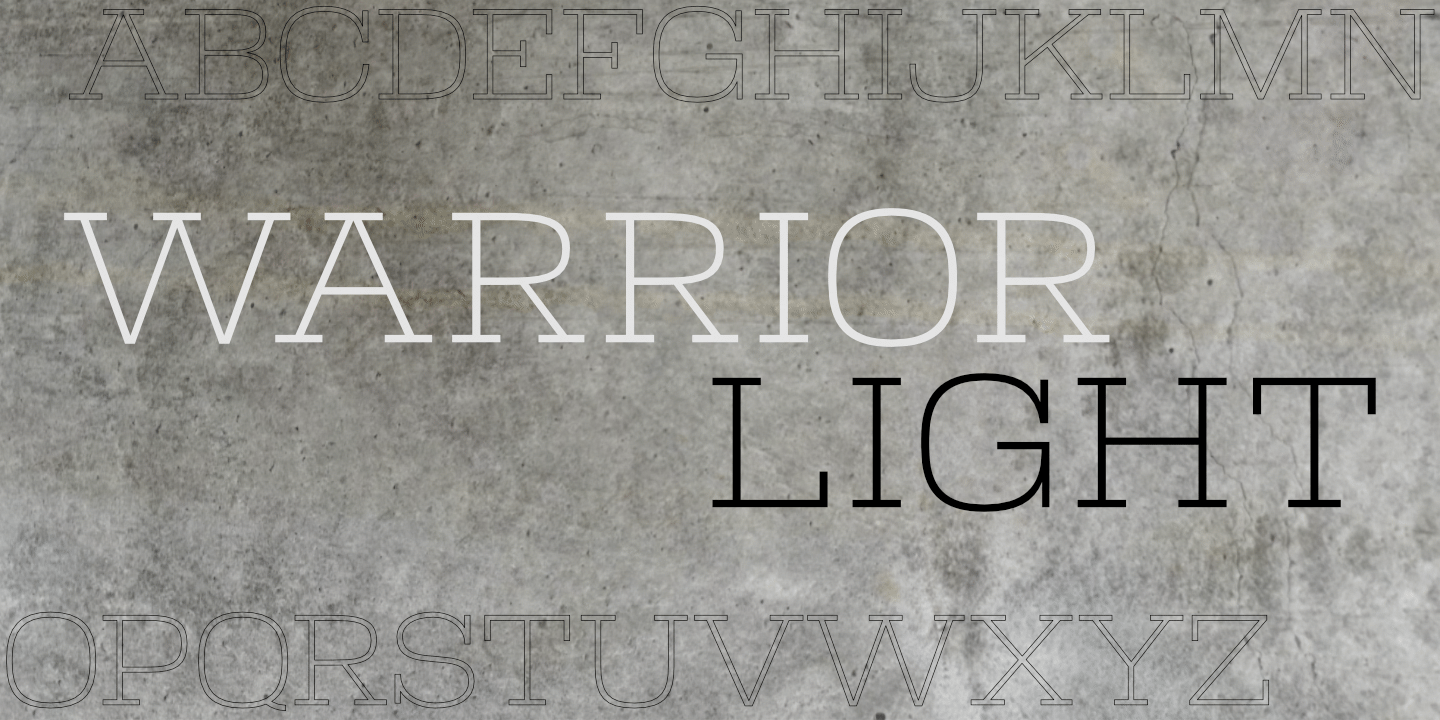
Warrior Light
Warrior™ is a chunky typeface design inspired by a Russian Egyptian-style block alphabet (original designer unknown). "A structural slab serif design, the Warrior family is not simply well built, but possesses an air of beautiful utility." Available in seven weights (Hairline, Extra Light, Light, Regular, Medium, Bold, Black) in addition to three decorative styles: Shaded (3-dimensional), Inline, and Open. With its blocky letters and stable slab serifs, Warrior will add a bold, masculine look to your design. All members of the Warrior family support most European languages including modern Greek, and, of course, many languages that use the Cyrillic alphabet.